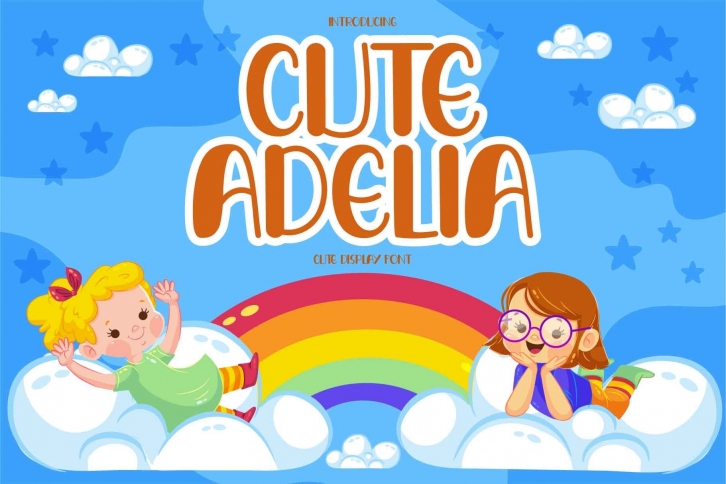
CUTE ADELIA is a gorgeous font that was realeased on January 9, 2021. The font can be used in many style contexts and design environments. Perfect for invitations, magazines, websites, logos, and more! It was designed by Alfinart and the file size is 15.22 MB. Thanks for checking out this font!